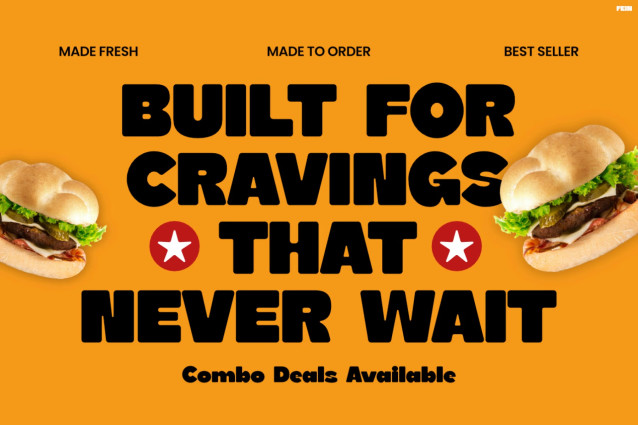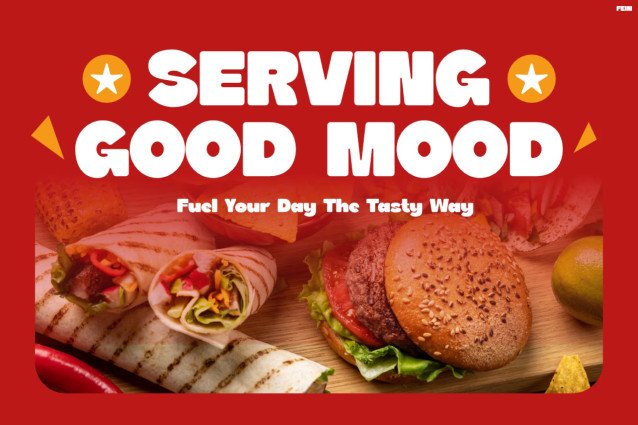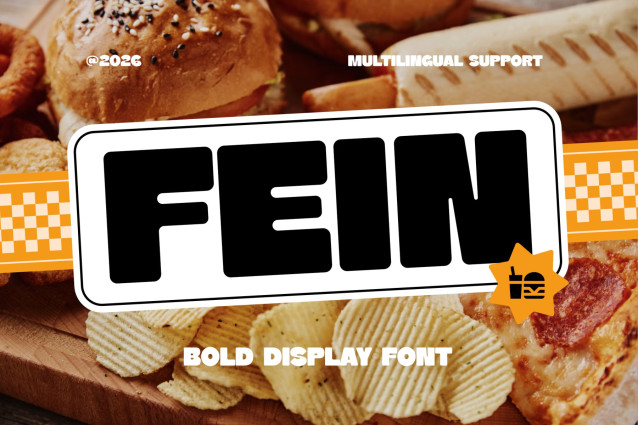
Fein Font
Instagram Font Fein is a bold, high-impact display font designed to grab attention instantly with its chunky shapes and playful street-style energy. Moreover, it features strong letterforms and thick strokes that create a powerful visual punch. As a result, every design feels modern, fun, and irresistibly eye-catching. In addition, its slightly compressed structure enhances readability while still maintaining a loud and confident personality.
Not only that, but this font also brings a fresh, energetic vibe that perfectly matches fast-paced food visuals. Therefore, from burger promos to snack campaigns, Fein transforms simple text into a mouthwatering visual experience.